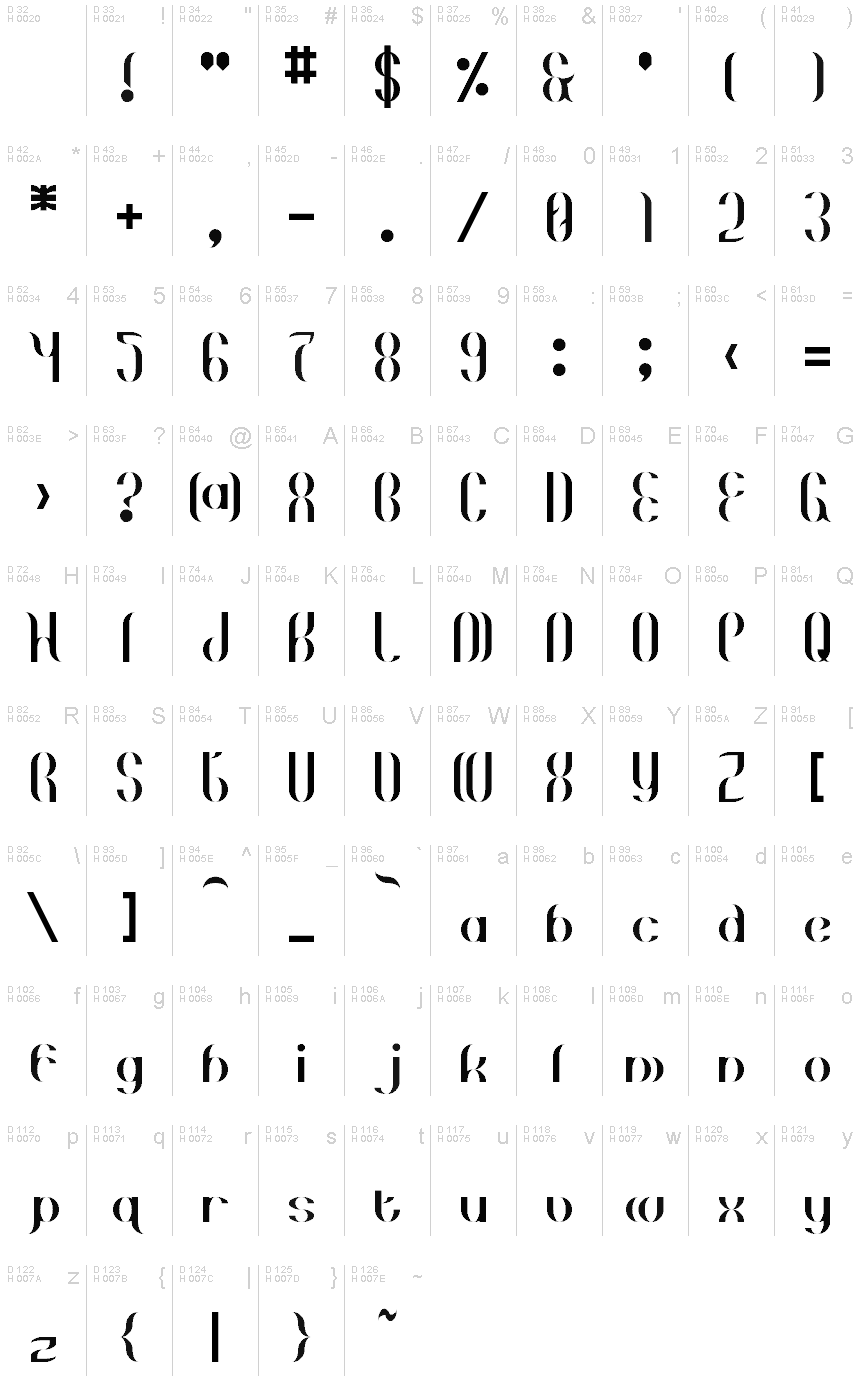
Gehenna Regular
Designer description: Experimental brush/pen thing. Has a slightly spooky look. Because of their tapering curves, many glyphs can render with a "split" or "stencil" look about them.
This design is not informed or inspired by any existing typographical traditions. I set out to make the "claw" bricks (as I call them) into a font and this is the result.